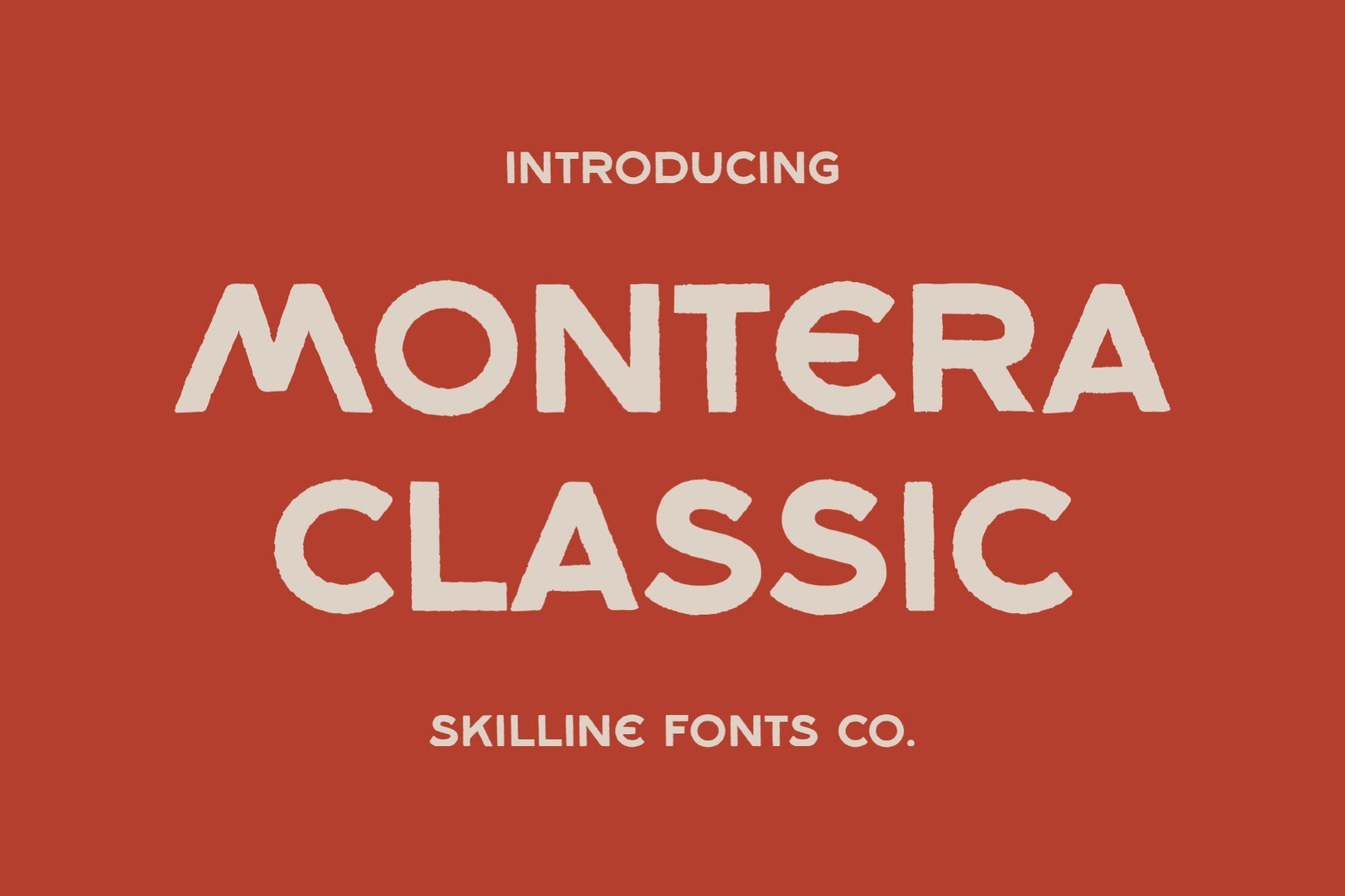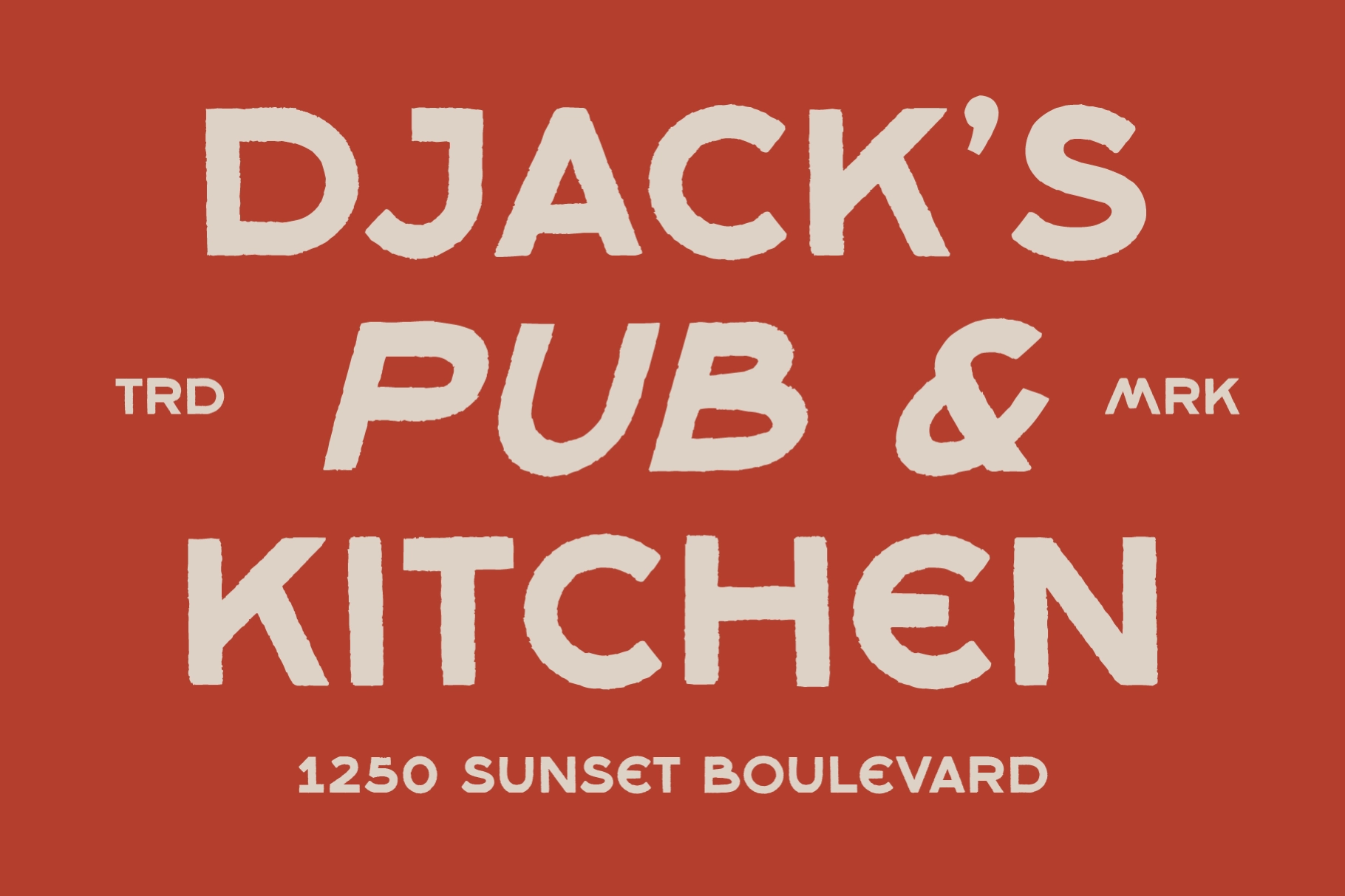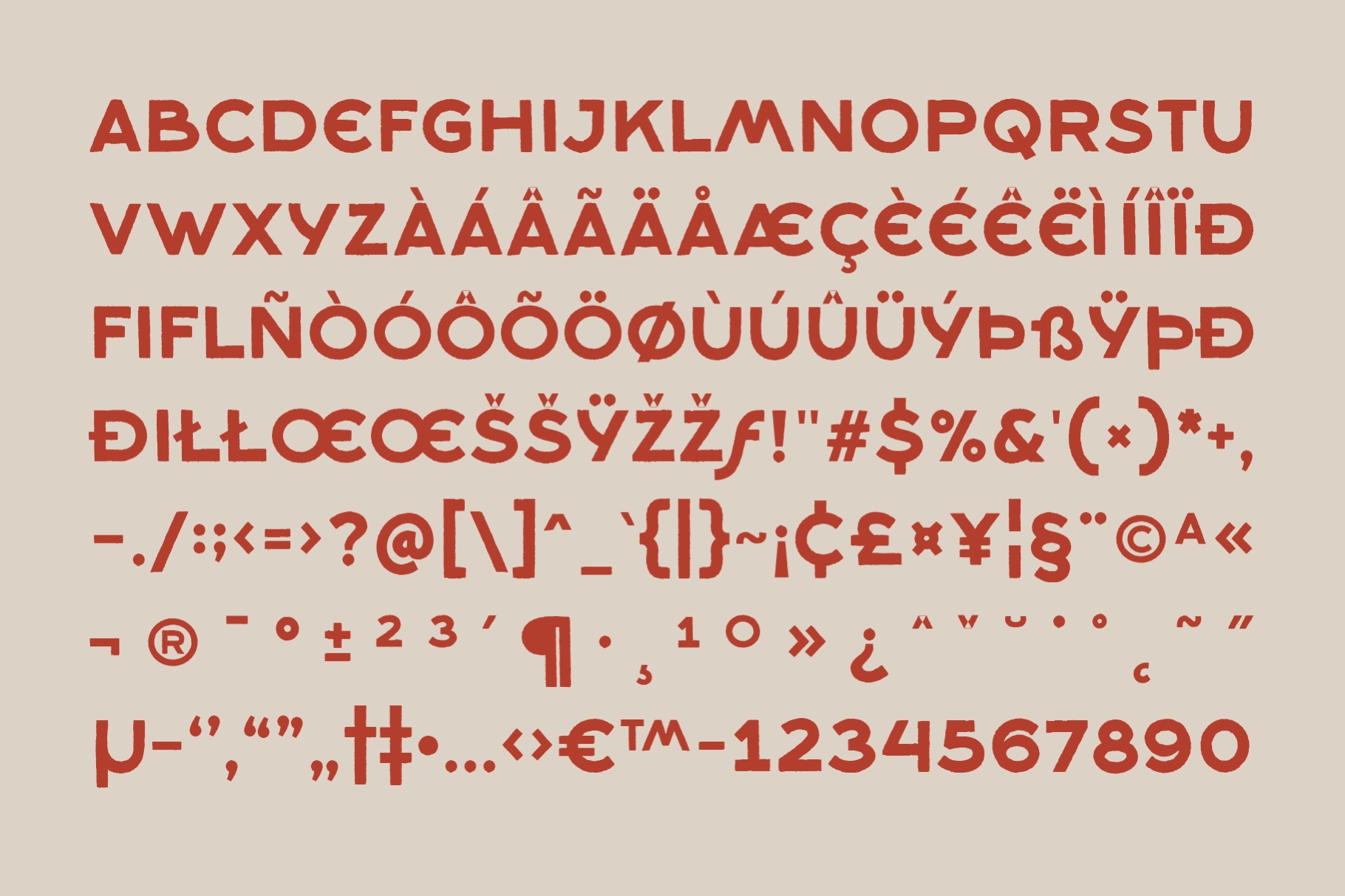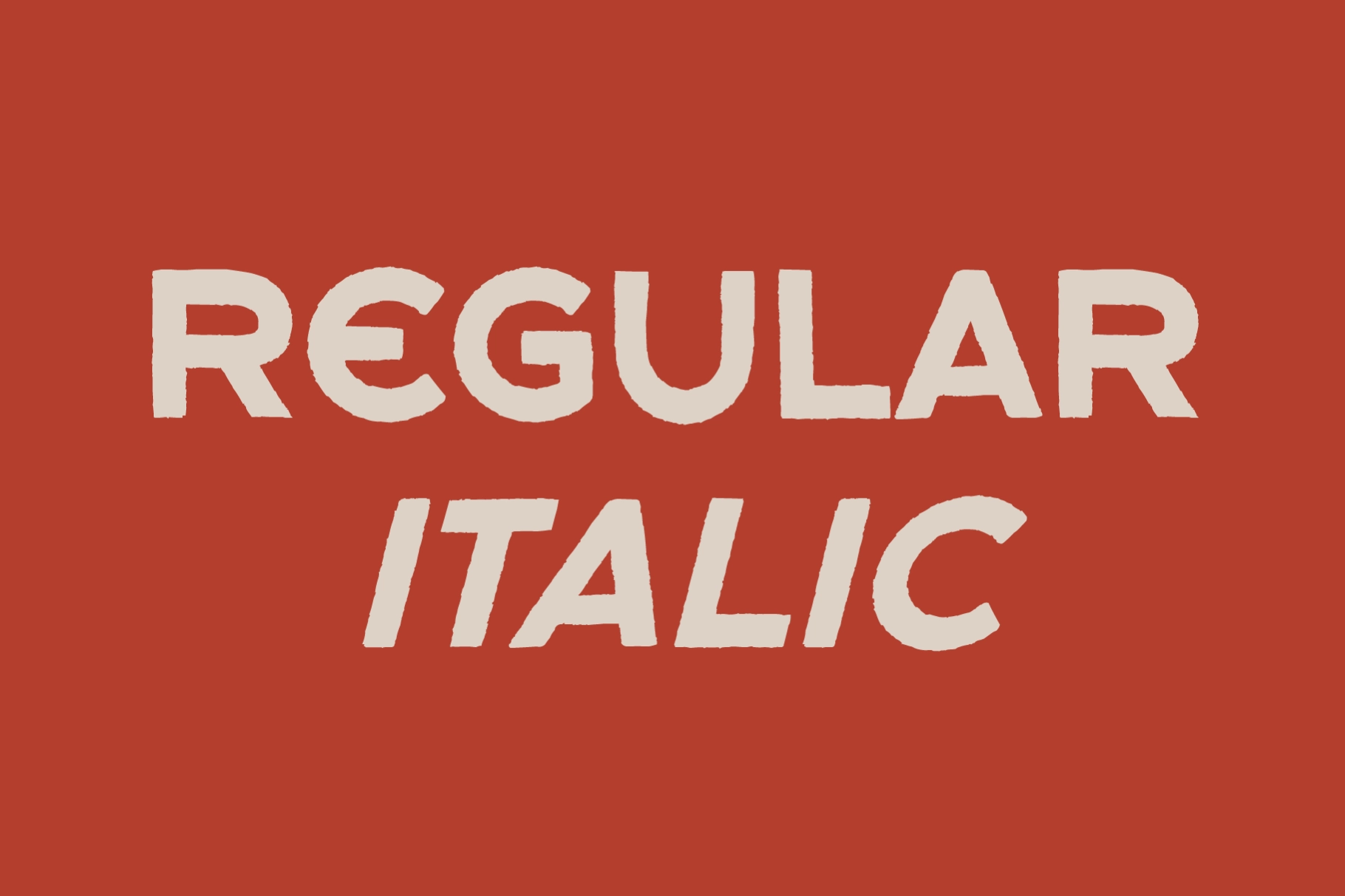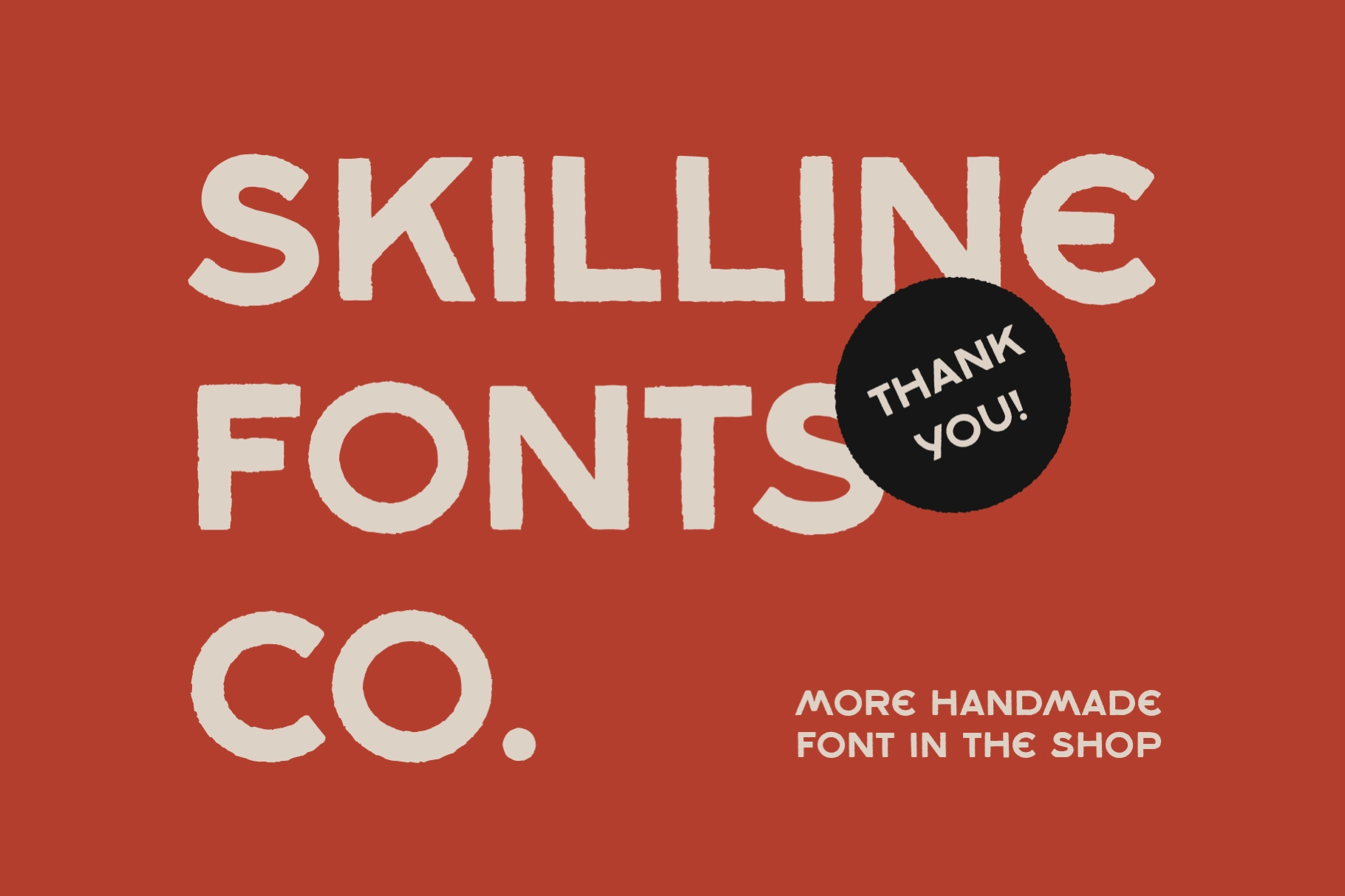
Montera Classic - Bold Vintage Display Font
SFC Montera Classic Italic
SFC Montera Classic
Montera Classic pulls its shapes from painted storefront signs and old hand-lettered shopfronts, landing as a bold vintage display font with blocky geometric caps and roughened, uneven edges on every stroke. The letterforms run heavy and square, closer to a signwriter's brush than a ruler, and the textured strokes keep the rhythm handmade instead of stiff.
The two-style set — Regular and Italic — holds up at poster scale and inside a short badge line alike, with the slanted cut adding a hand-painted tilt to accents. Use it for shop signage, retro branding, poster headlines, badge logos, and packaging labels.
- uppercase only;
- numerals, punctuation & symbols;